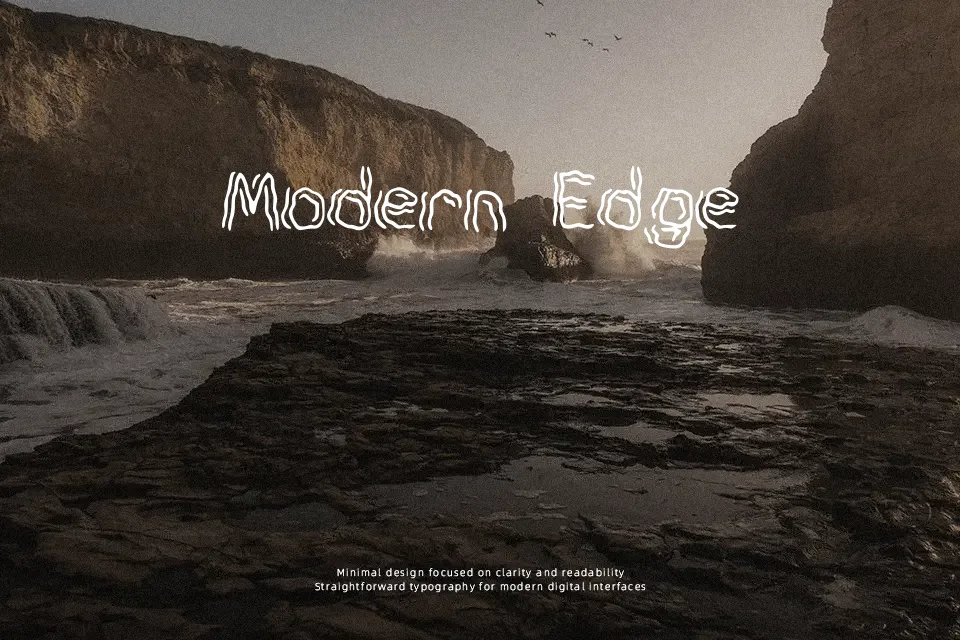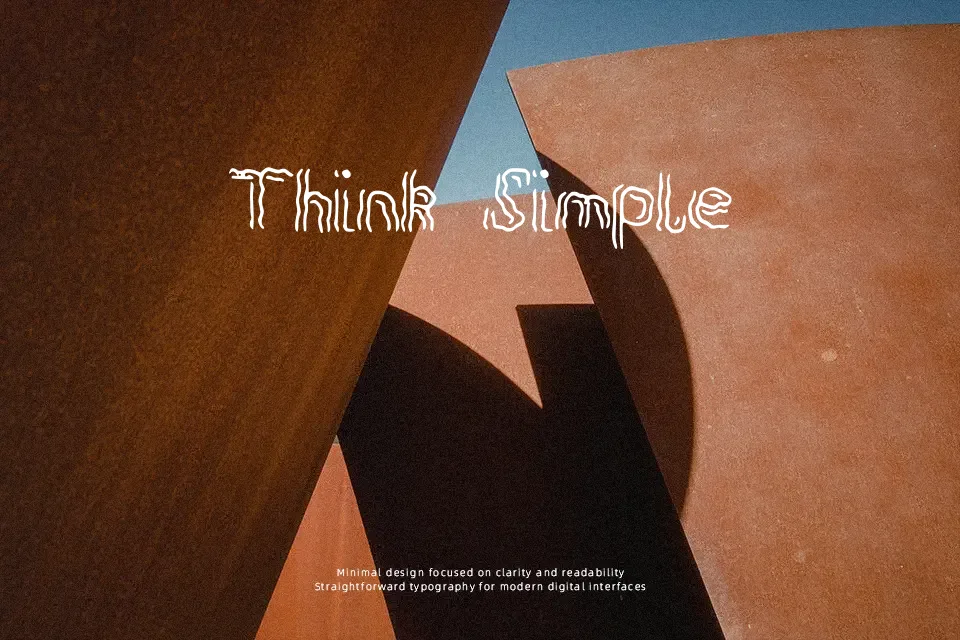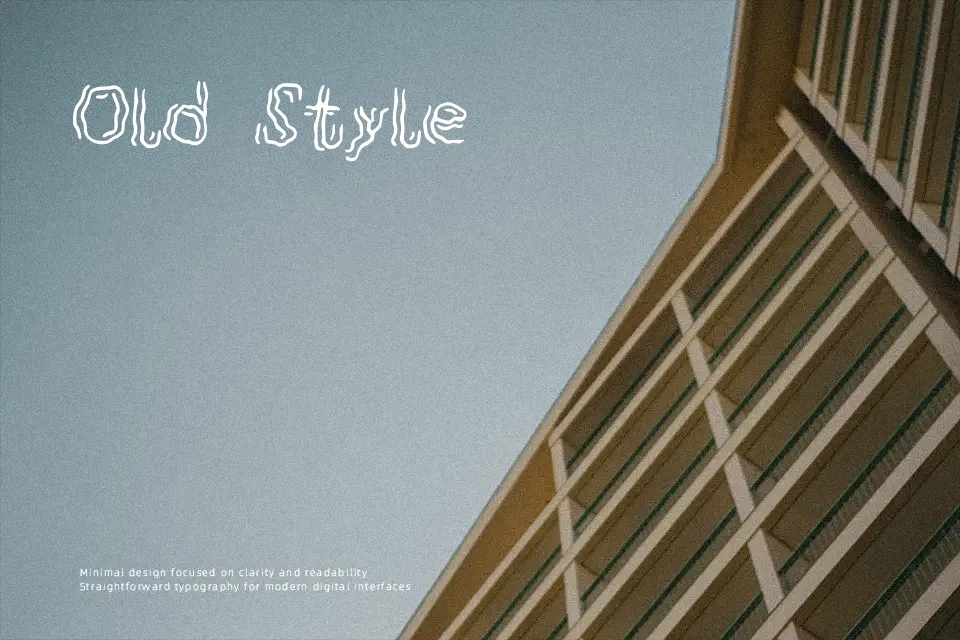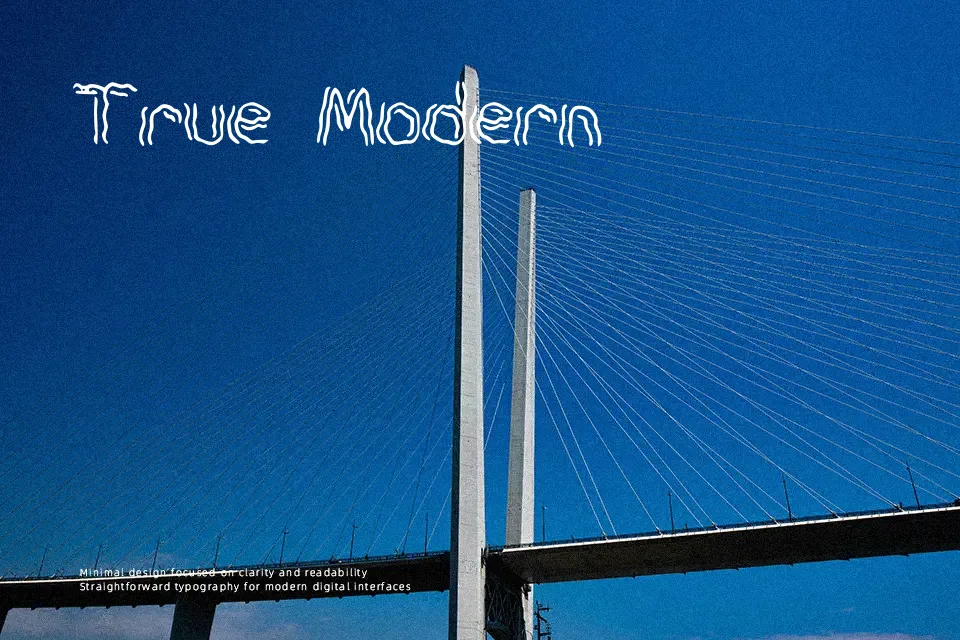
Spook Font
Spook Font establishes an eerie visual presence through uneven stroke weights, rough contours, and expressive dripping terminals. The letterforms display varied character widths and open spacing that emphasize the ghostly silhouette of each glyph when rendered at large display scales. In practical application, the typeface excels across haunted house banners, horror video game covers, and Halloween merchandise graphics. However, the exaggerated decorative features and organic outlines impair legibility in smaller text sizes. Long paragraph settings become difficult to decipher as the distorted forms merge together. This design achieves its strongest balance when limited to isolated display headlines and prominent focal text.
haunted house banners,horror game titles,Halloween event posters,thematic apparel graphics
long body paragraphs,dense editorial layouts,mobile app interfaces,fine print captions
Perfect for film, gaming, and halloween, with a creative and decorative style.